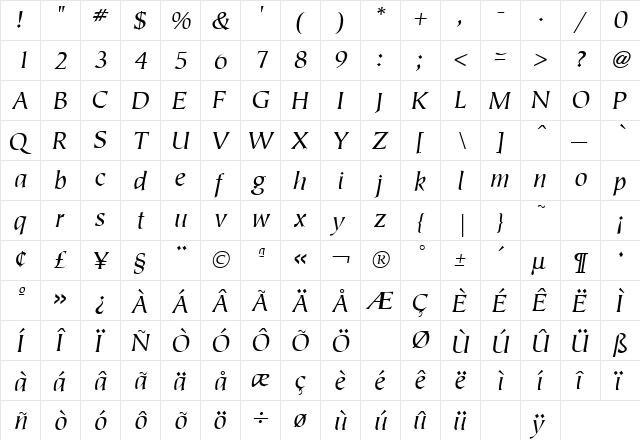
Tiepolo Italic
Design Context for Tiepolo Typeface
Tiepolo offers clean, dependable letterforms without strong stylistic allegiance, making it a practical choice for designers who need flexibility. Its italic angle brings a sense of urgency and motion to the letterforms.
Pro Tip: Try Tiepolo for annotation and caption copy alongside an upright companion — the contrast in angle creates a dynamic but ordered typographic system.